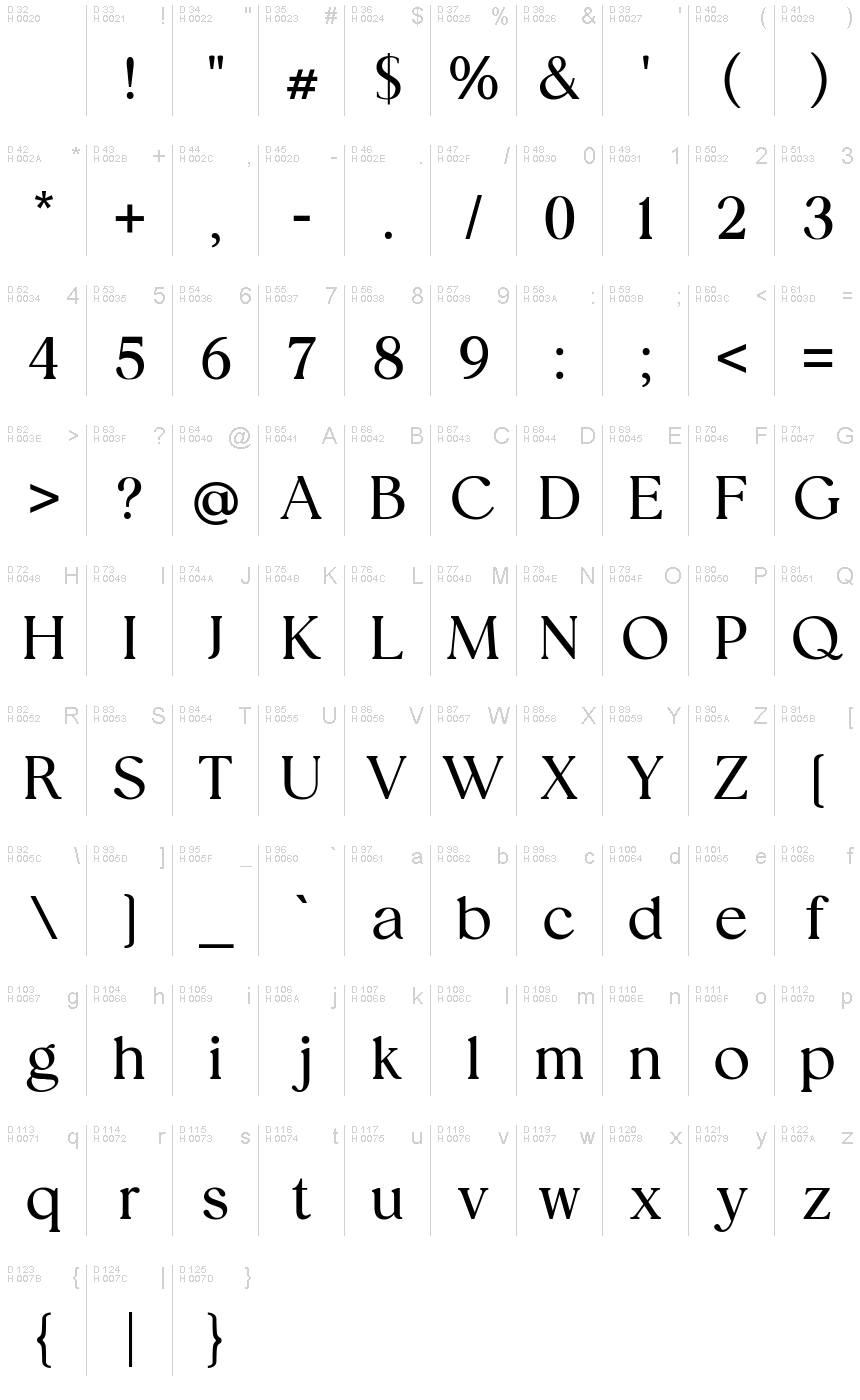
Ariane Coachella Regular
Ariane Coachella captivates with its elegant blend of classic serif elements and modern flair, showcasing a harmonious balance that exudes sophistication. The distinctively stylish curves and arches give this font a unique character, while its light presence feels airy and inviting. When expanded, the letterforms radiate a sense of grandeur, making them ideal for impactful headlines.
Perfect for branding in the fashion or event industries, Ariane Coachella enhances everything from invitations to promotional materials. Its charm is equally suited for editorial layouts that call for elegance and readability. Whether used in print or digital formats, Ariane Coachella emerges as a versatile choice that effortlessly adds sophistication to any design project.